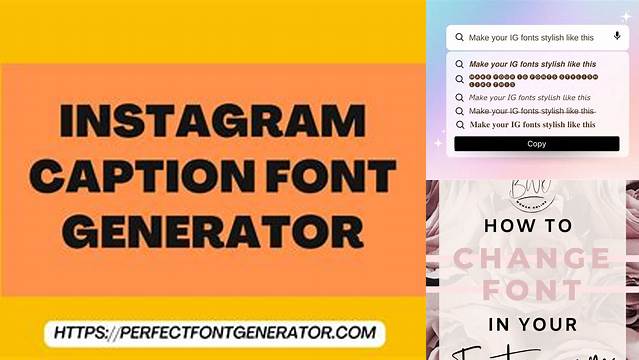
Instagram Fonts: Stylish Text & Cool Captions
Alright, folks, let's dive into the awesome world of Instagram Fonts! You know, those fancy, eye-catching text styles you see on Instagram that make your profile pop? Well, we're gonna explore how to get your hands on those fonts, customize your captions, and basically become an Instagram font guru. We'll be talking about lingojam.com/fontsforinstagram, a super handy tool that lets you generate all sorts of cool text styles. So, if you're ready to spice up your Instagram game, buckle up, because we're about to get started!
H2: Understanding Instagram Fonts and Their Appeal
So, what exactly are Instagram fonts, and why are they so darn appealing? Well, they're essentially different text styles that you can use in your Instagram bio, captions, and even your stories to make your content stand out. Think of it as giving your Instagram a personal touch, a unique flavor that reflects your personality or brand. The appeal is simple: in a sea of generic text, using unique fonts grabs attention. It's like adding a splash of color to a black-and-white world. These fonts can be anything from elegant and sophisticated to bold and quirky, allowing you to convey a specific mood or message. They help you create a visual identity that's instantly recognizable. Plus, let's be honest, they're just plain fun! They make your profile more engaging and interesting, encouraging people to stop scrolling and take a closer look at your content. Using cool fonts is a way of showing off your creativity and a way to get people to keep coming back to your feed. That's why everyone's so into Instagram fonts, right? They're a simple yet effective way to elevate your Instagram game and leave a lasting impression on your audience. And hey, who doesn't want that extra bit of pizzazz?
The beauty of Instagram fonts lies in their versatility. You can use them in various ways: in your bio to make a statement about who you are and what you do, in your captions to add emphasis or personality to your posts, and in your stories to create eye-catching text overlays. They're a fantastic way to break up the monotony of the standard Instagram font and add a little personality to your content. Also, using different fonts is a creative way to communicate your brand or style. This helps build a strong visual identity and makes your content more memorable. A unique font choice can tell a story, set a mood, and draw the viewers attention. So, why stick to the same old boring font when you have so many cool options at your fingertips? Get creative, experiment with different styles, and see how they can transform your Instagram profile from blah to bam!
H2: Exploring LingoJam's Role in Generating Instagram Fonts
Now, let's talk about lingojam.com/fontsforinstagram, your secret weapon in the Instagram font world. LingoJam is a user-friendly online tool that allows you to transform your regular text into a variety of cool and unique font styles. It's like a text generator on steroids! All you need to do is type your text into the input box, and LingoJam will instantly generate a list of different font variations for you to choose from. It’s super easy to use and requires no technical skills or downloads. This makes it accessible to everyone, from social media newbies to seasoned pros. The tool works by using Unicode characters to create these different text styles. Unicode is a global standard for encoding characters, and it includes a vast range of symbols and glyphs that can be used to create these fancy fonts. This is why these fonts often look different from the standard fonts you're used to seeing. LingoJam translates your standard text into these special Unicode characters, allowing you to copy and paste them directly into your Instagram posts, bio, and stories.
The beauty of LingoJam is in its simplicity and the vast array of options it provides. From elegant cursive styles to bold, blocky fonts, and even quirky symbols, LingoJam has something for everyone. This allows you to completely customize your Instagram content. Furthermore, the process is incredibly straightforward. You don't need to download any apps or learn any complicated design software. Just type, choose, and copy-paste! LingoJam streamlines the process of creating unique text, making it accessible and time-saving. It’s especially handy if you want to create visually appealing content quickly. It's a great way to add a unique touch to your Instagram content, helping you stand out from the crowd. Plus, it's fun to experiment with different font styles and see which ones work best for your brand or personal style. That's what makes LingoJam so valuable. It's the perfect tool to elevate your Instagram game.
H2: Step-by-Step Guide: Using LingoJam for Instagram Fonts
Ready to become a font master? Let's walk through how to use lingojam.com/fontsforinstagram step by step. First, head over to the website. You’ll find a clean and intuitive interface that's easy to navigate. In the input box, type the text you want to convert into a stylish font. This could be anything from your Instagram bio to a caption or a story text. As you type, LingoJam will automatically generate a list of different font styles below the input box. Take a look at the options, scrolling through the variations to find the ones that match your vibe. When you see a font style you like, click on it to select it. Next, copy the generated text. You can do this by clicking the copy button next to the font style or by selecting the text and using your device's copy function (Ctrl+C on Windows, Cmd+C on Mac). Now, head over to Instagram. This can be on your phone or on your computer. Paste the copied text into your Instagram bio, caption, or story text. You can do this by long-pressing in the text field and selecting